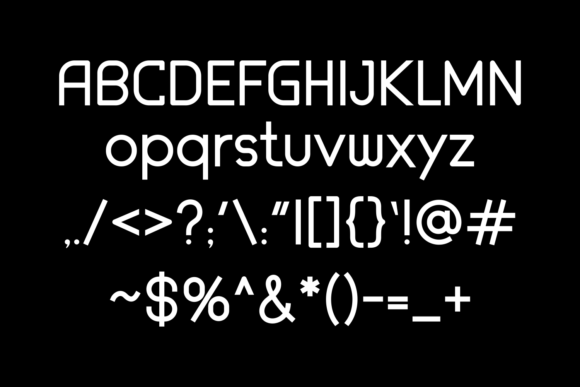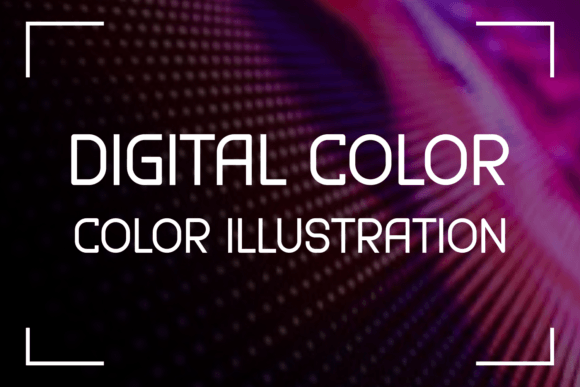
Introduction to Morisqi Font Font
Fonts play a crucial role in design, and the Morisqi Font font is a typeface that brings both character and versatility to any project. Whether you’re working on a branding project, a website, or a print design, the Morisqi Font font offers a unique style that can elevate your work.
Morisqi is a cool and unique sans serif font.
Fall in love with its incredibly distinct and timeless style and use it to create spectacular designs .
Key Features of Morisqi Font Font
Why Choose Morisqi Font Font?
The Morisqi Font font is more than just a typeface – it’s a design tool that helps you communicate your message with style and clarity. Its unique character set and versatile design make it suitable for a wide range of applications, from elegant invitations to bold headlines.
With its carefully crafted letterforms and balanced proportions, the Morisqi Font font ensures readability and visual appeal across all mediums.
What makes Morisqi Font font special?
The Morisqi Font font stands out with its unique design, exceptional readability, and versatility across various design applications.